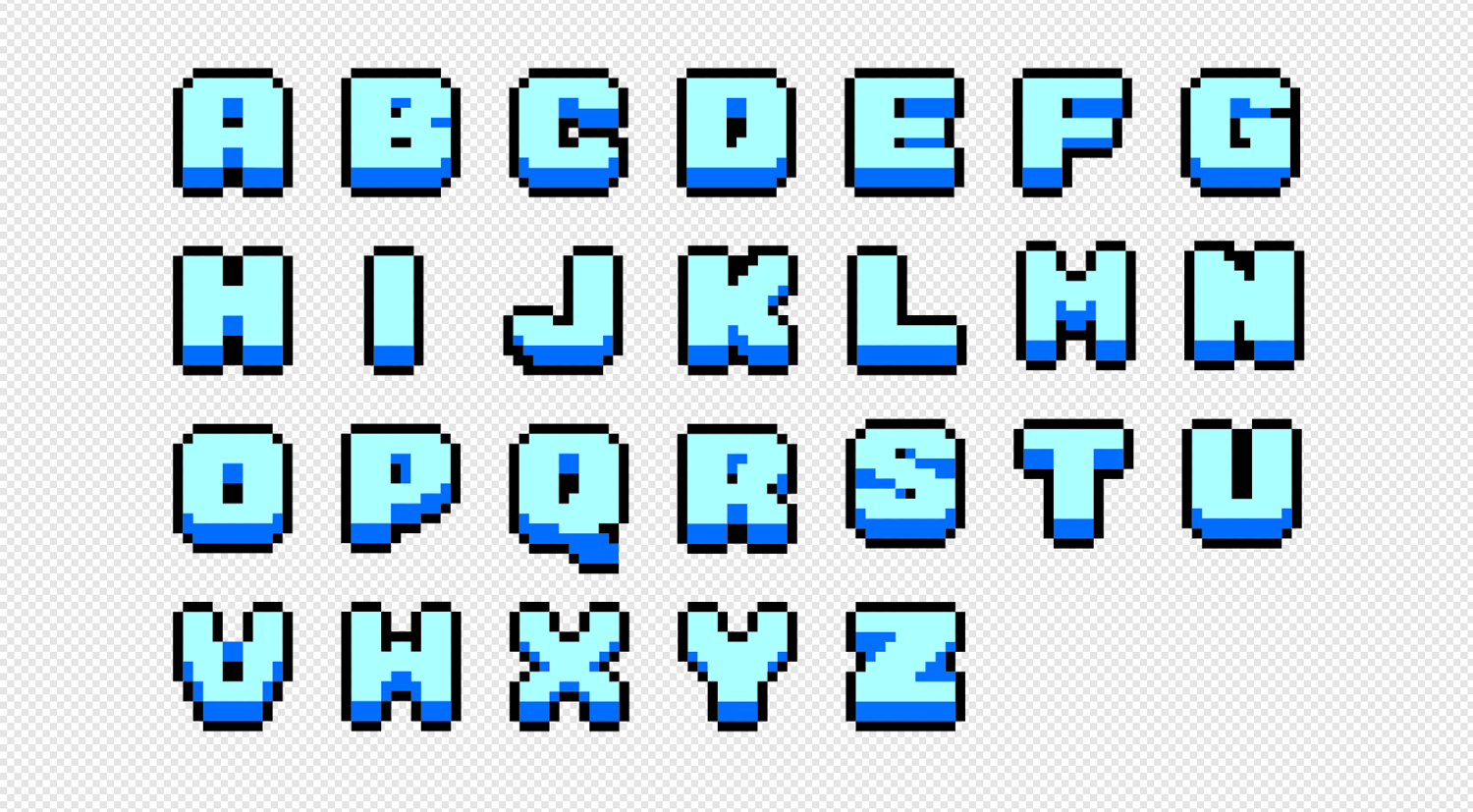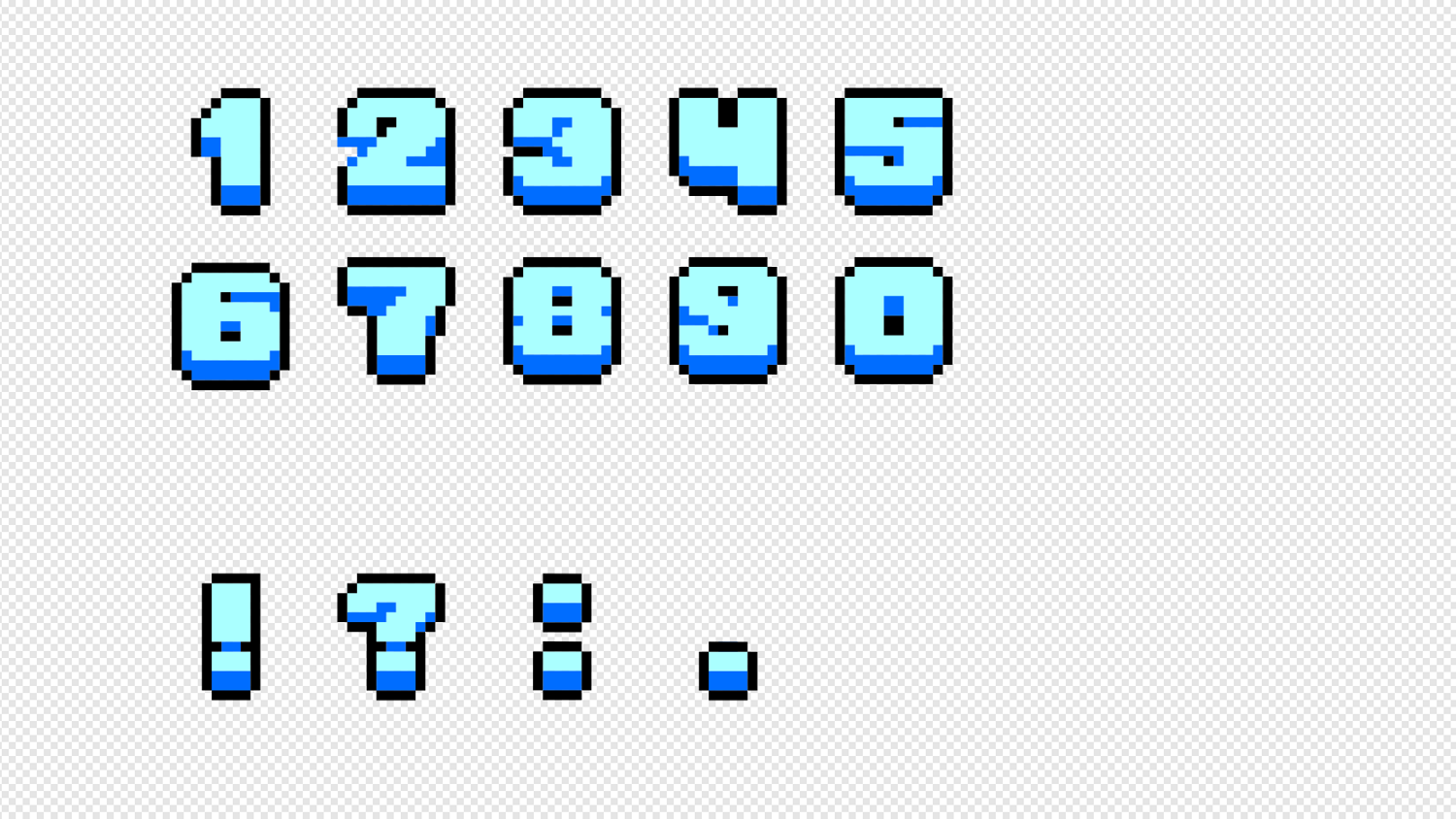
The asset TashiroPixelfont01 pack consist of:
• 26 capital letters in pixel look (no ä, ö, ü and no special characters)
• 10 numbers 0-9
• 4 punctuation marks
• 40 characters total
This pixel font can be used as headlines, graphic text elements and also for typographical posters.